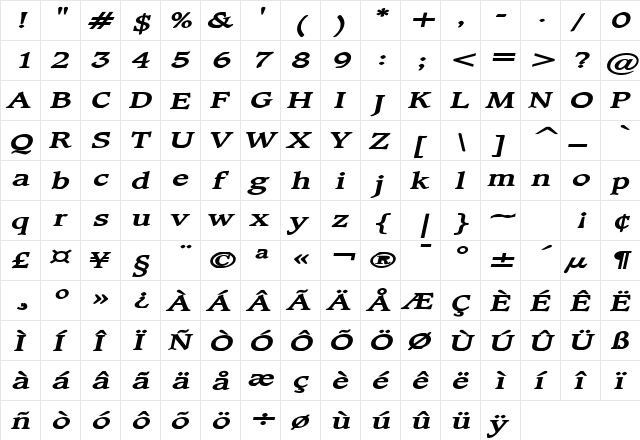
Clayton Extended Bold Italic
Design Context for Clayton Extended Typeface
Clayton Extended takes a measured approach to typography — its balanced proportions and neutral character make it a reliable workhorse for both digital and print work. Its italic angle brings a sense of urgency and motion to the letterforms. Its bold stroke weight gives it real presence on the page.
Pro Tip: Use Clayton Extended for emphasis, pull quotes, and subheadings where its slanted energy can add rhythm to the layout.